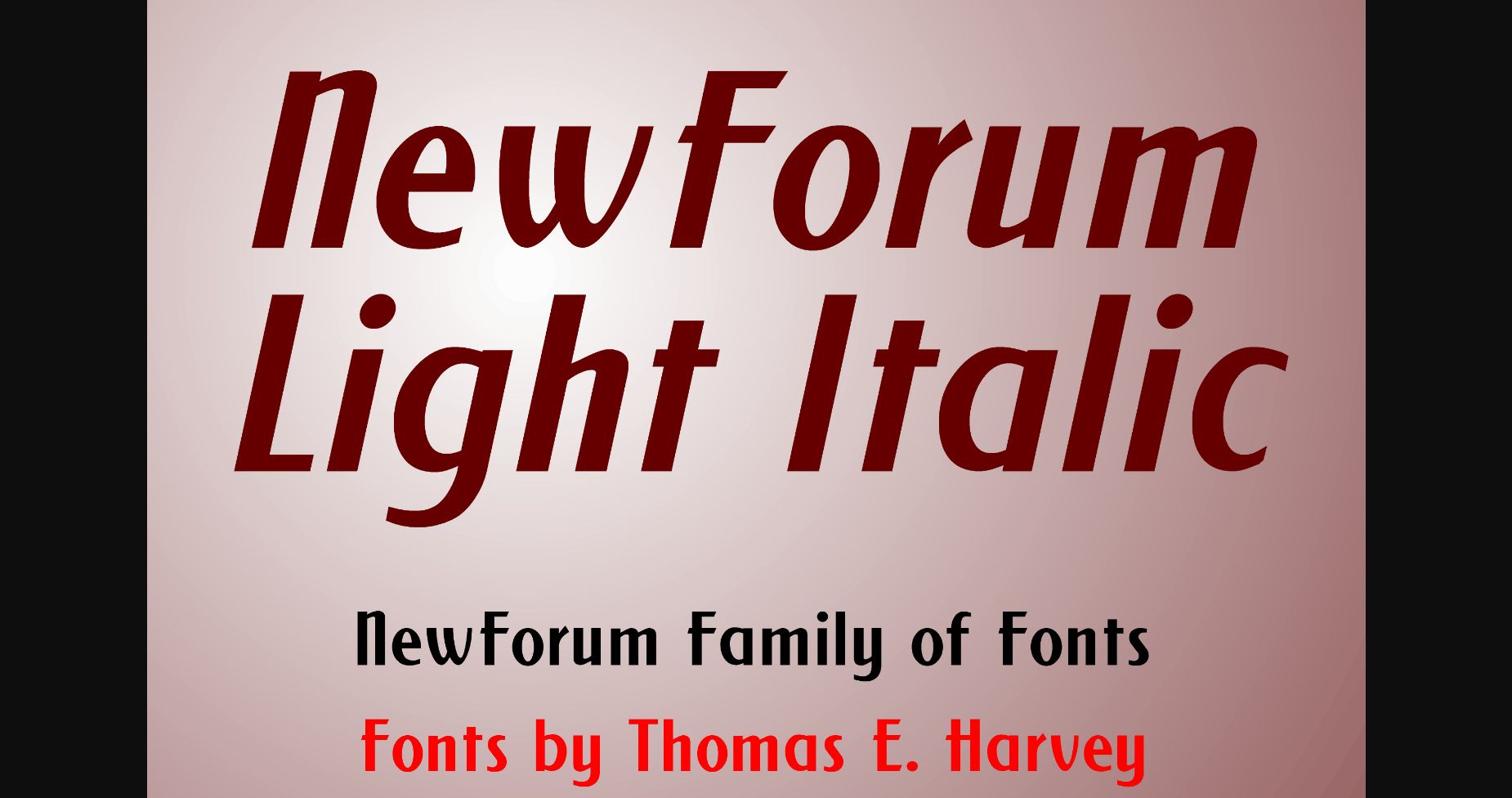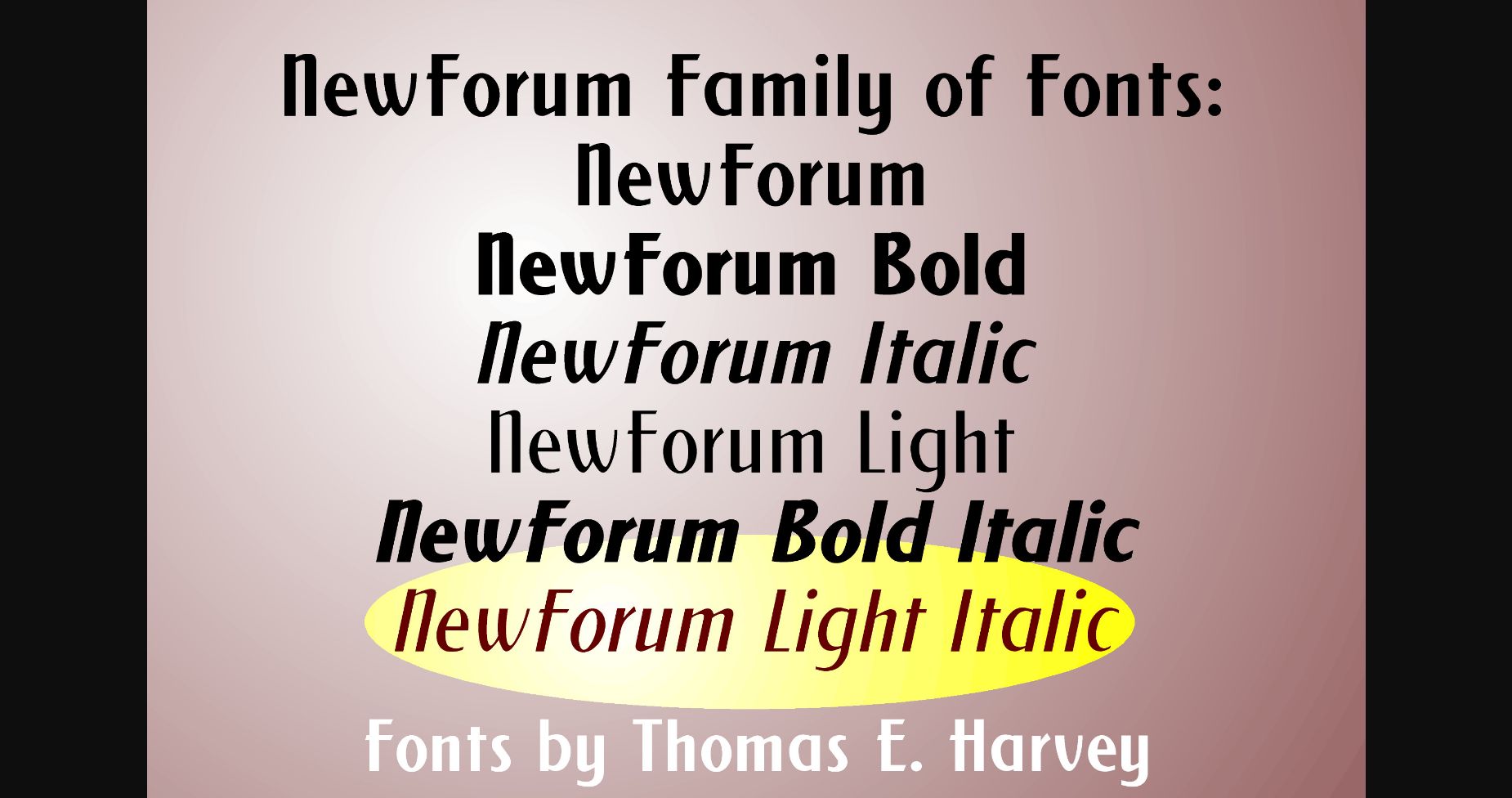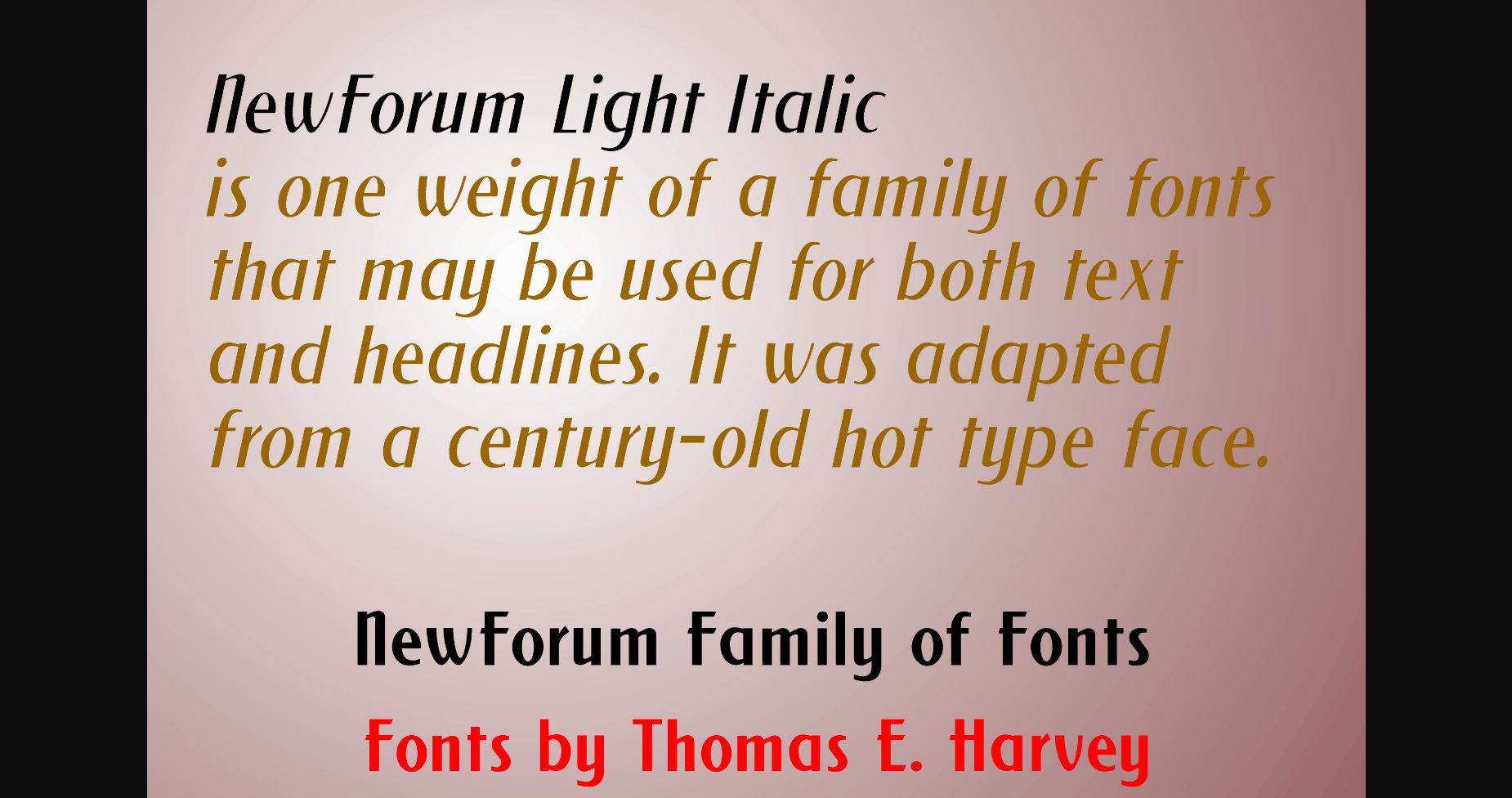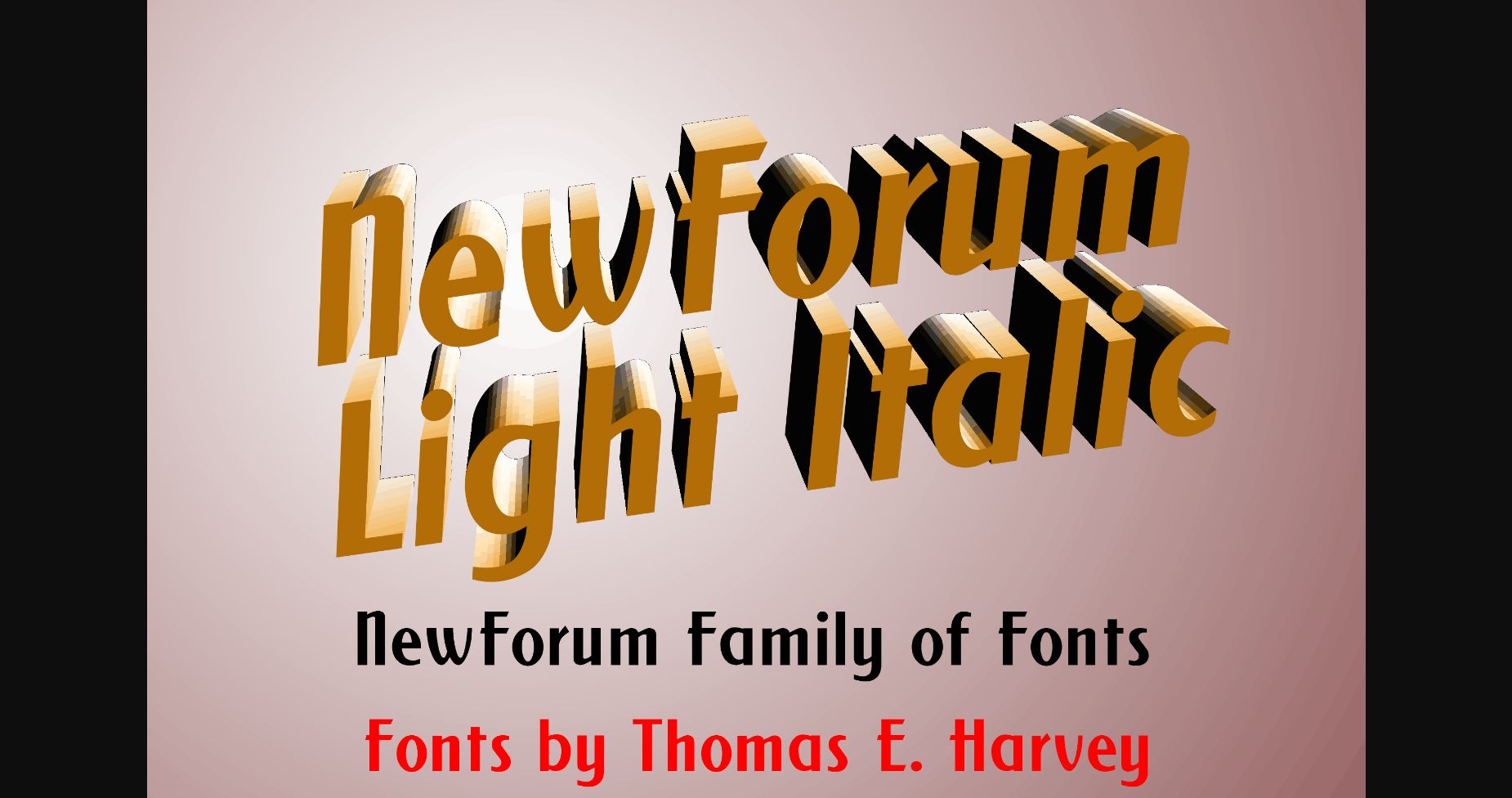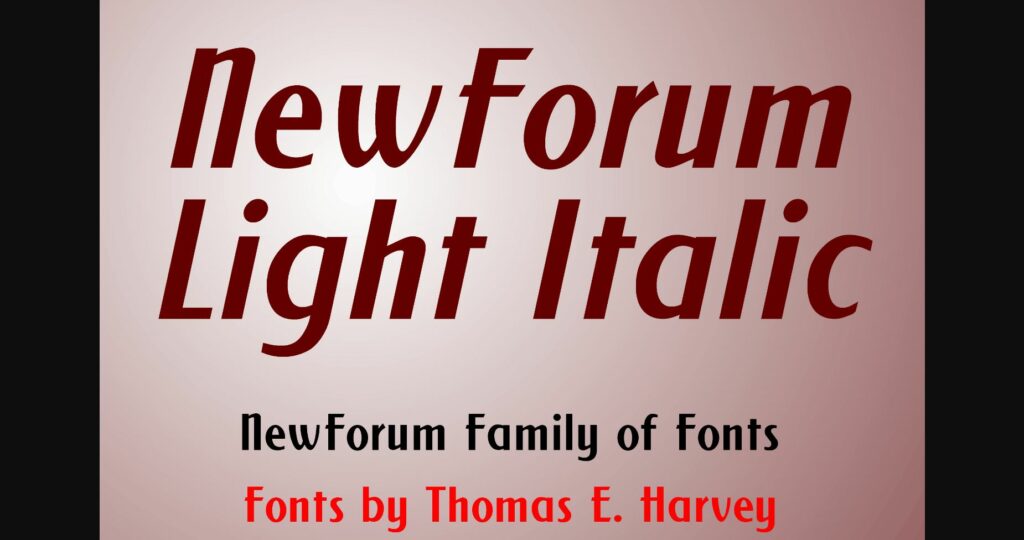
New Forum Light Italic Font
About New Forum Light Italic Font
NewForum Light Italic is an incredibly versatile and refined sans serif font. This font was particularly crafted for those who need a beautiful and refreshing look to their designs.